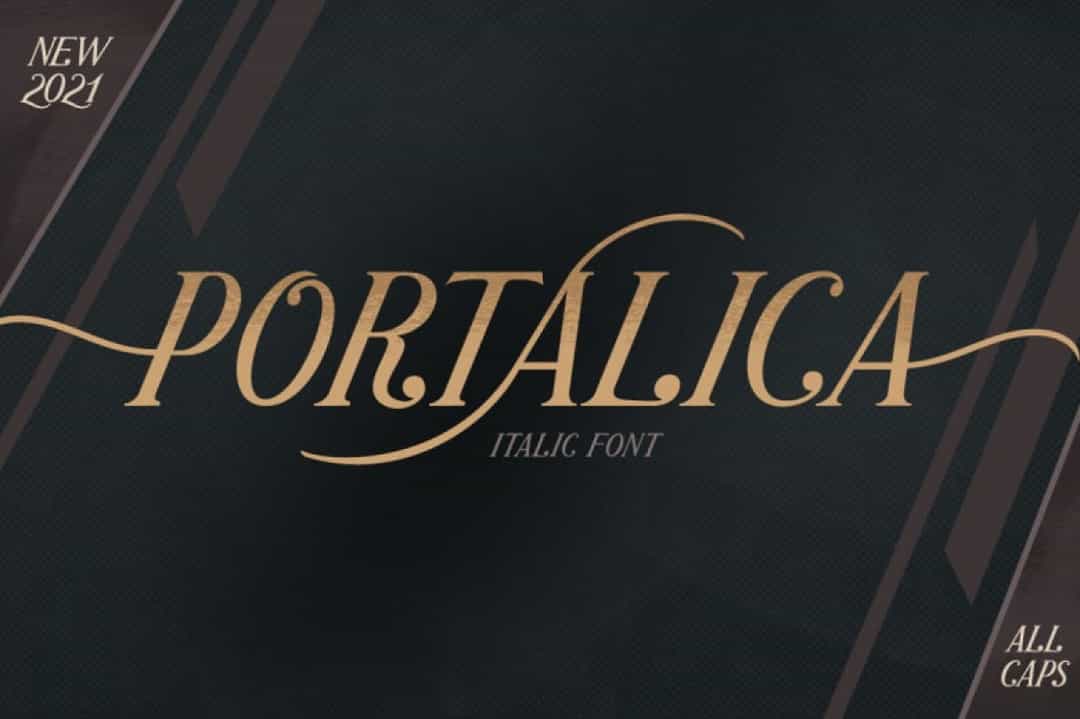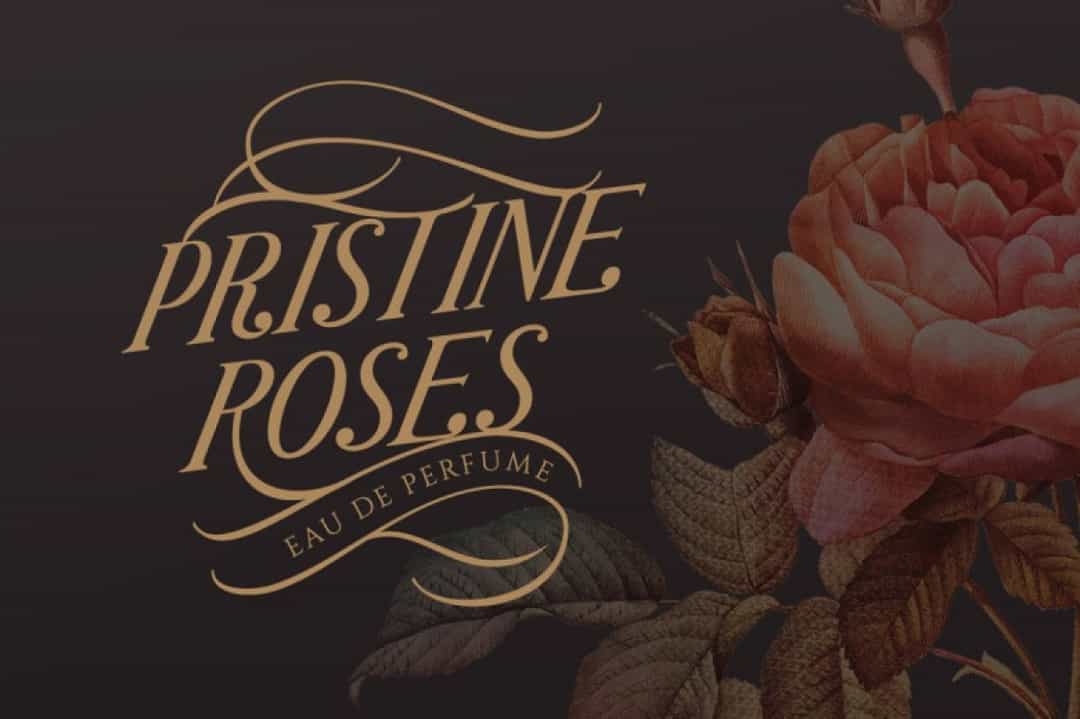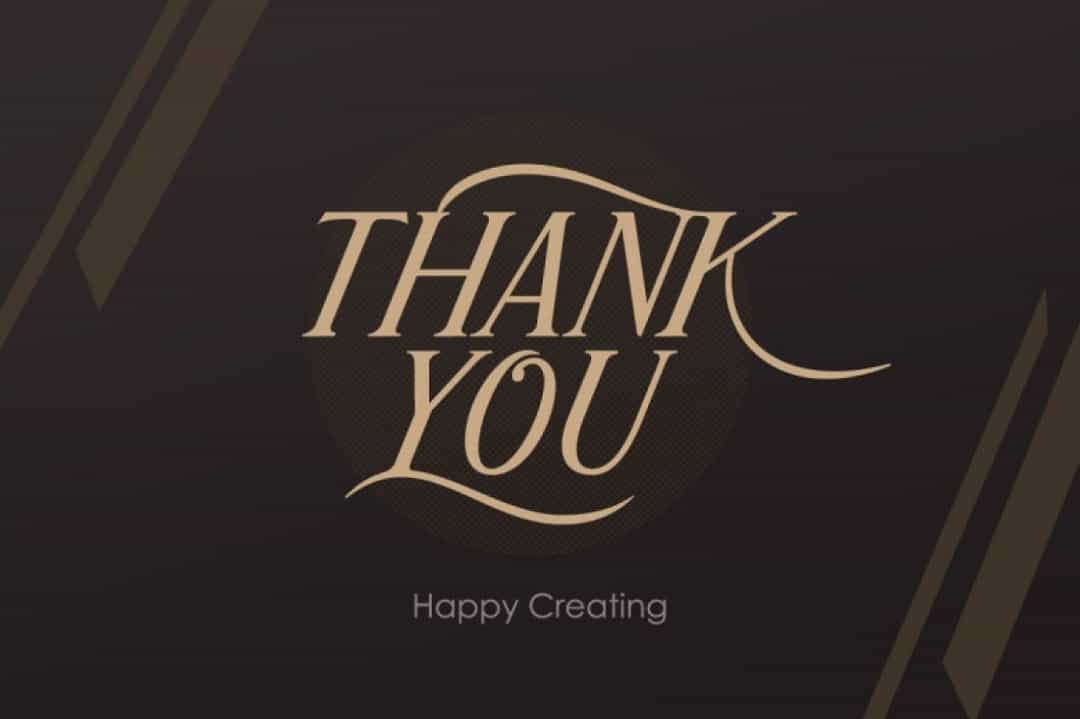
Discover Portalica Font, part of the Serif collection—a versatile and unique font perfect for adding a personal touch to your projects. Download it for free and enjoy crafting designs with style, from invitations to social media posts. This font is available exclusively for personal use, giving you the freedom to create without limits. Unlock your creativity with Portalica Font today!
Protalica, our latest italic serif font, boasts an attractive modern style with alternates featuring swirled swashes to make logotypes or letters more striking. Serifs combined with swirled swashes make Protalica one-of-a-kind!